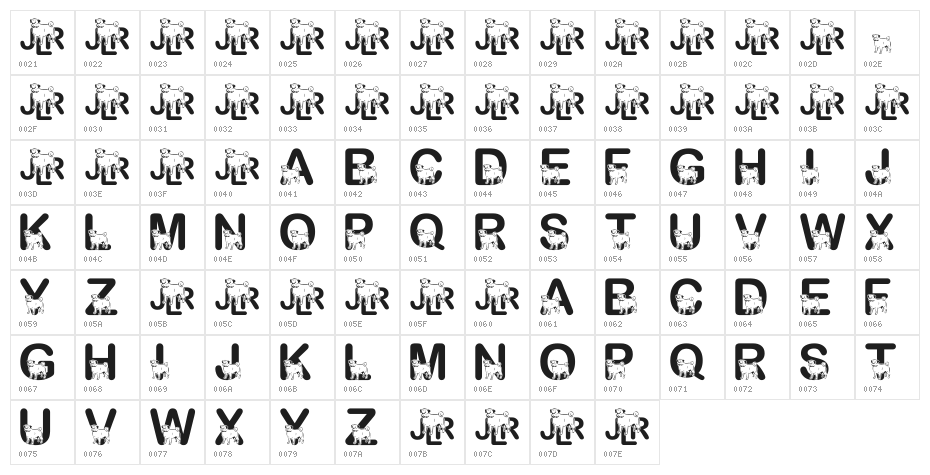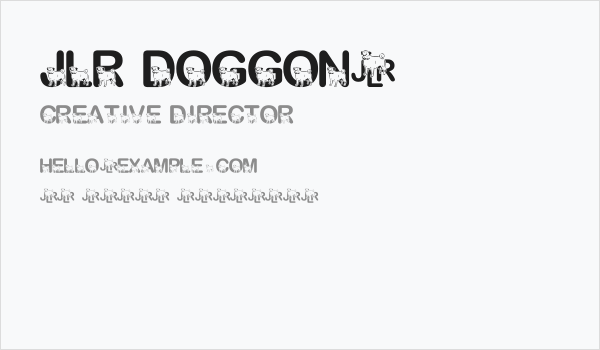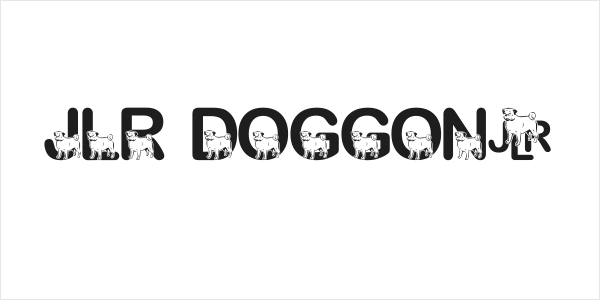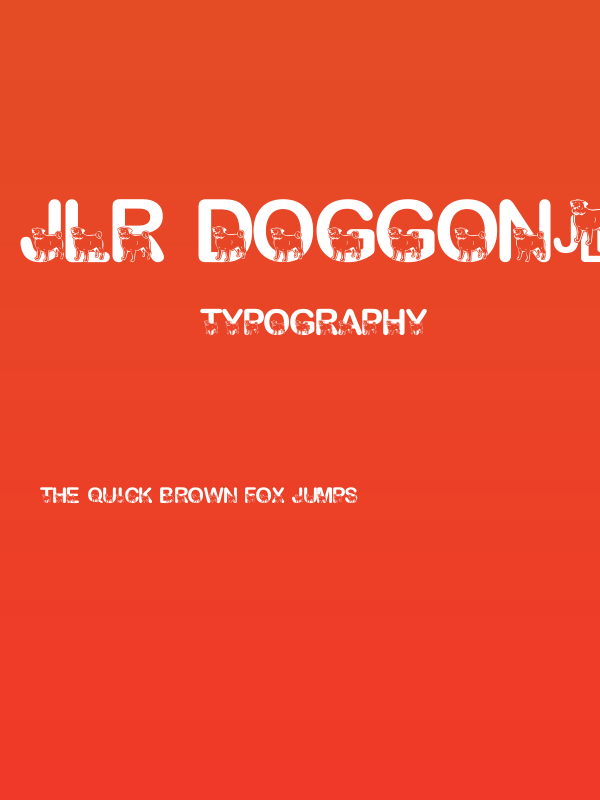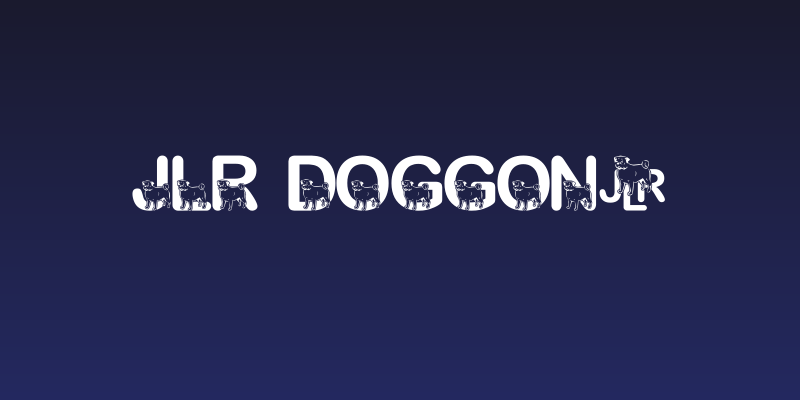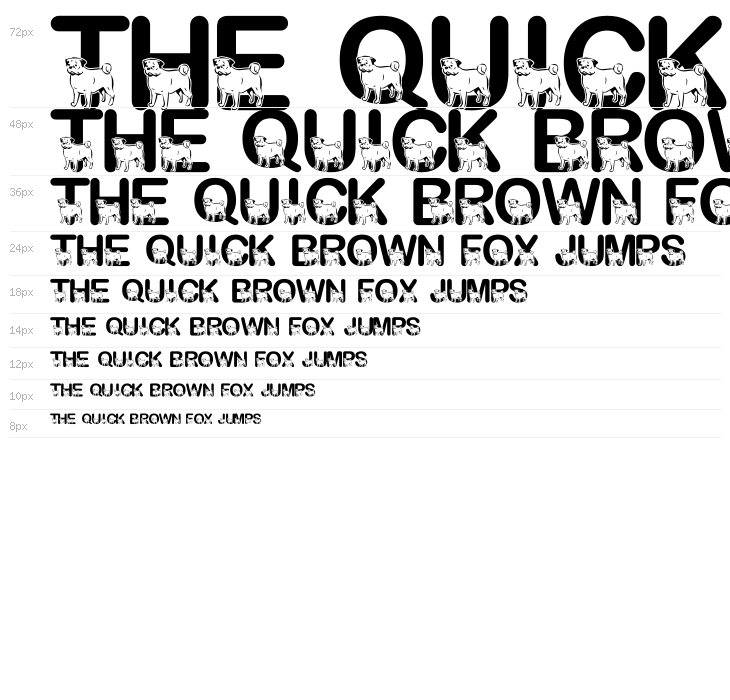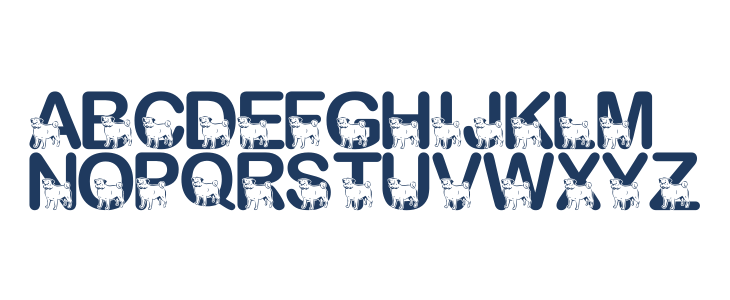
JLR Doggon! Font
JLR Doggon! Description
This playful and whimsical font features bold, rounded letters with a unique twistΓ’β¬βeach character is integrated with a cartoon dog illustration. The dogs are cleverly positioned within the negative space of the letters, adding a fun and creative element to the design. The font maintains a consistent weight and width, making it easy to read while still offering a decorative flair. Its distinctive style is perfect for projects that require a touch of humor and creativity, such as children's books, pet-related branding, or playful event invitations.
| Overall Style | Whimsical |
| Proposed Projects | Ideal for children's books, pet branding, playful invitations, and creative advertisements. |